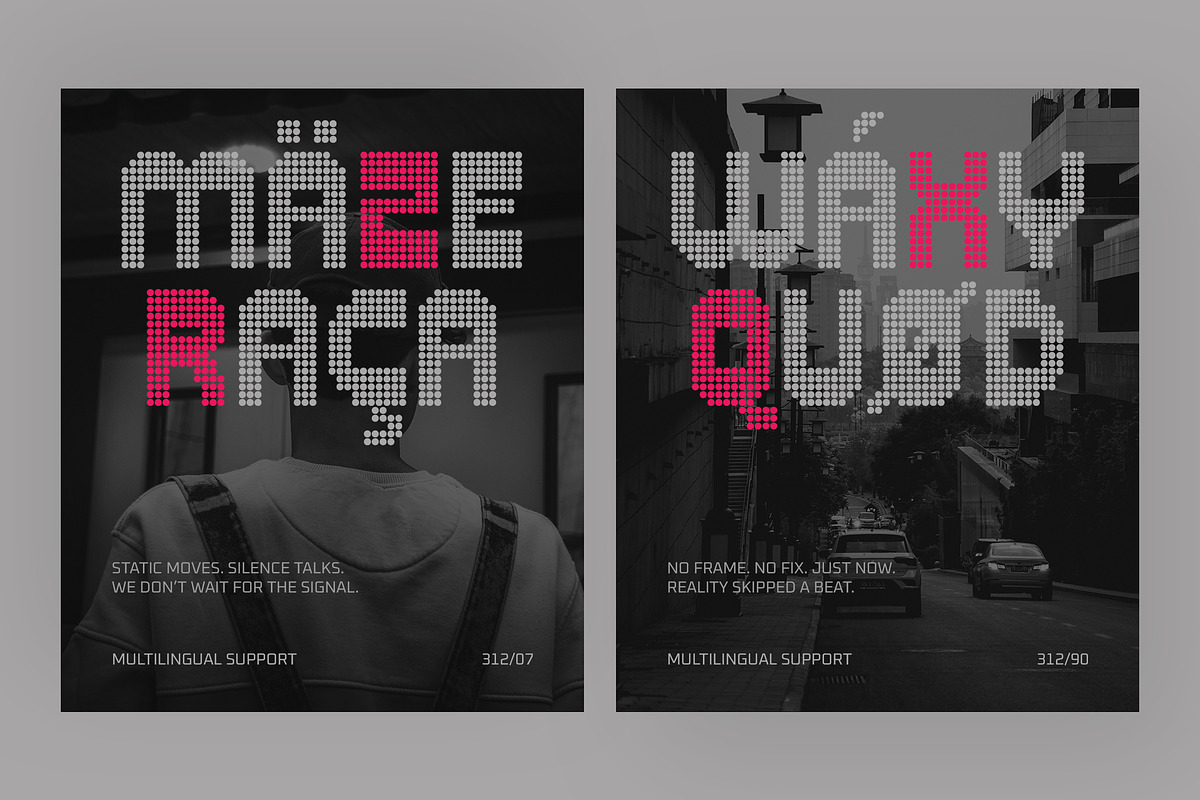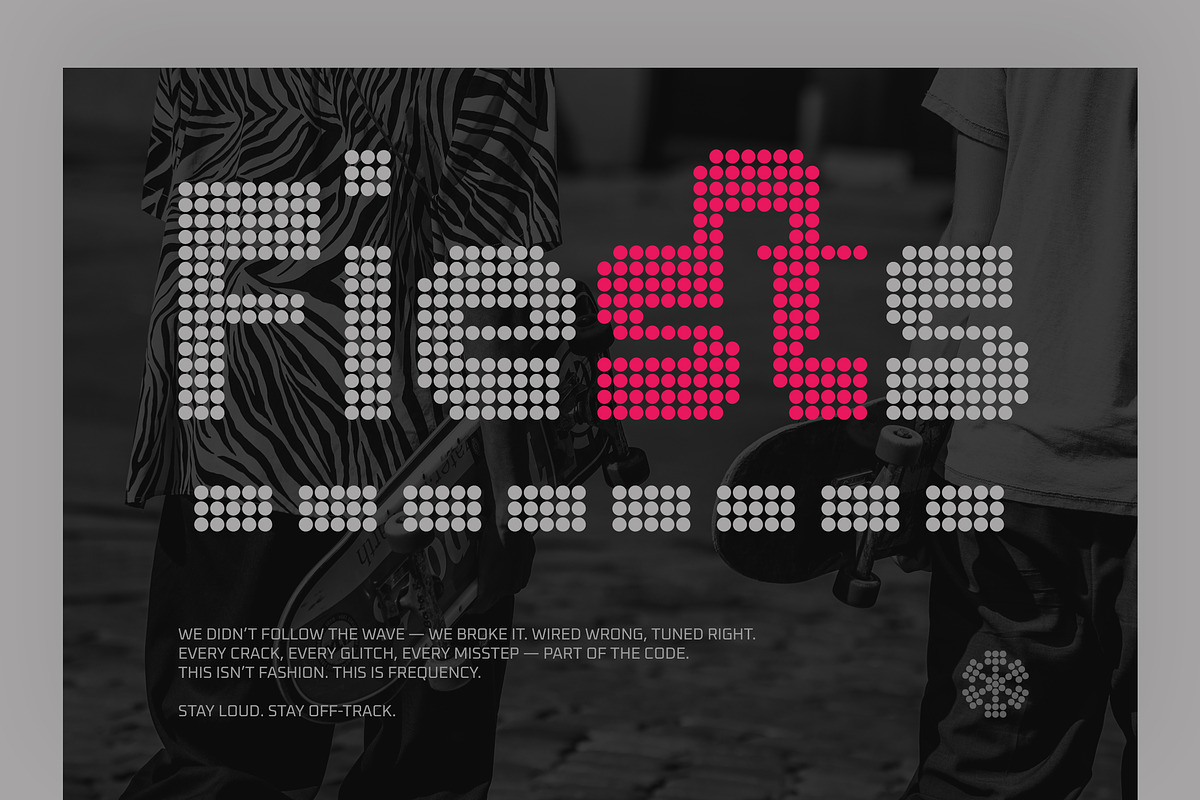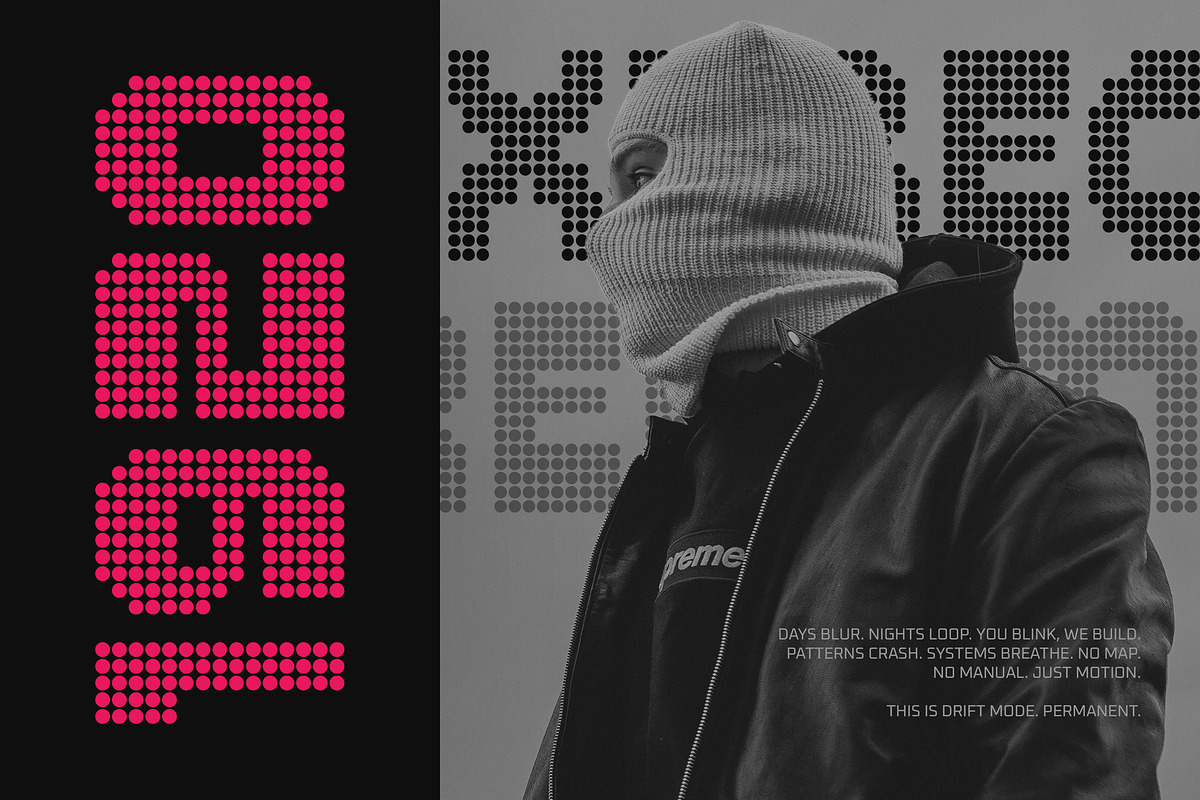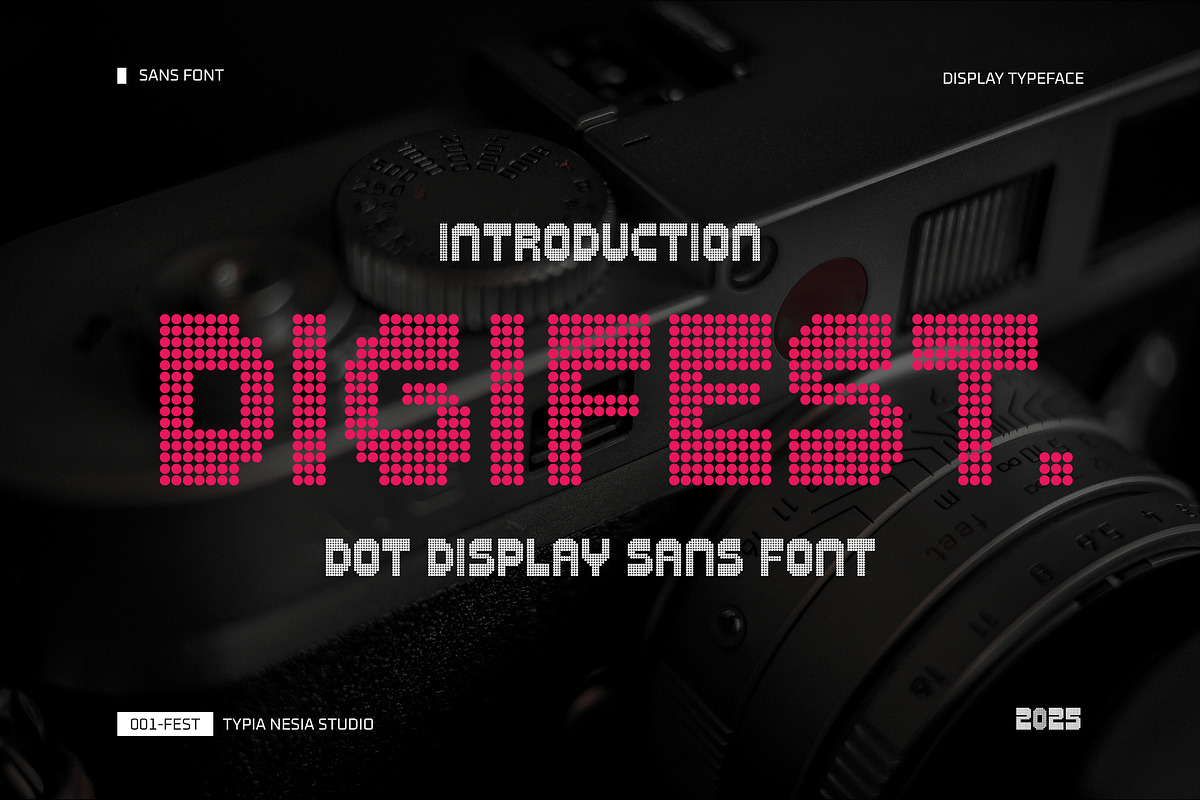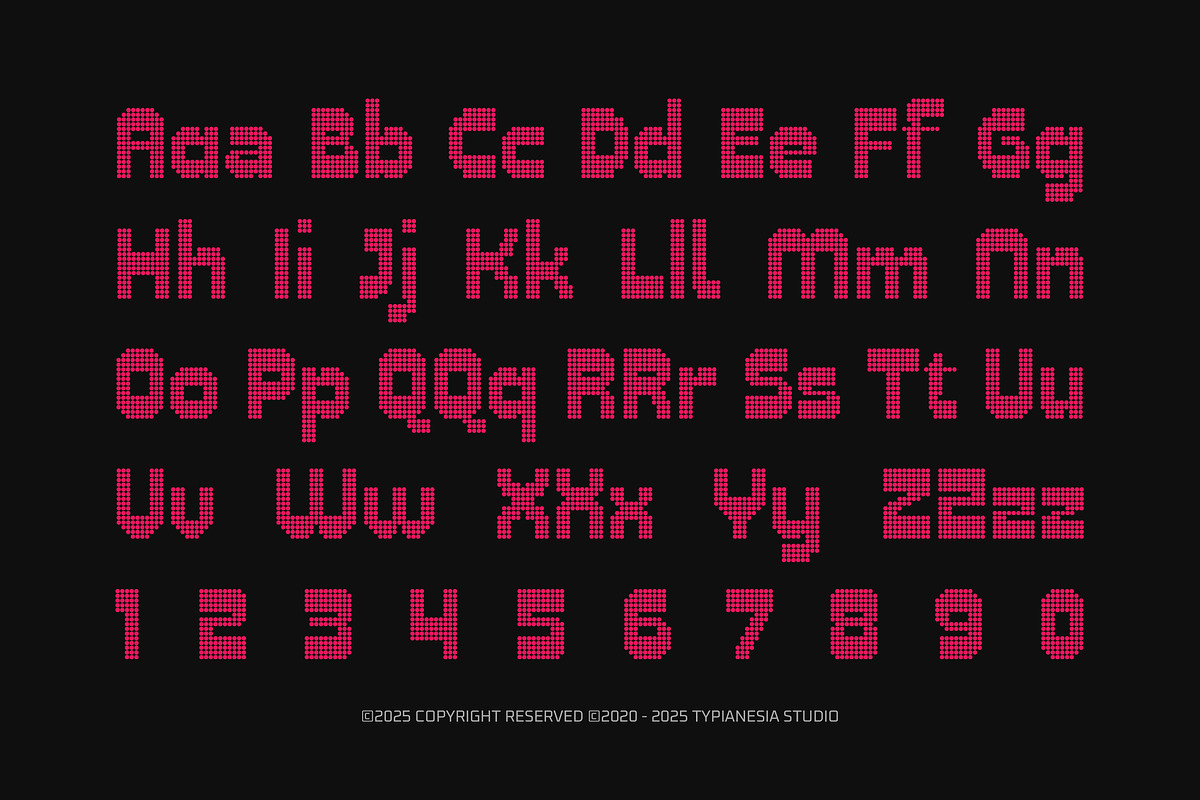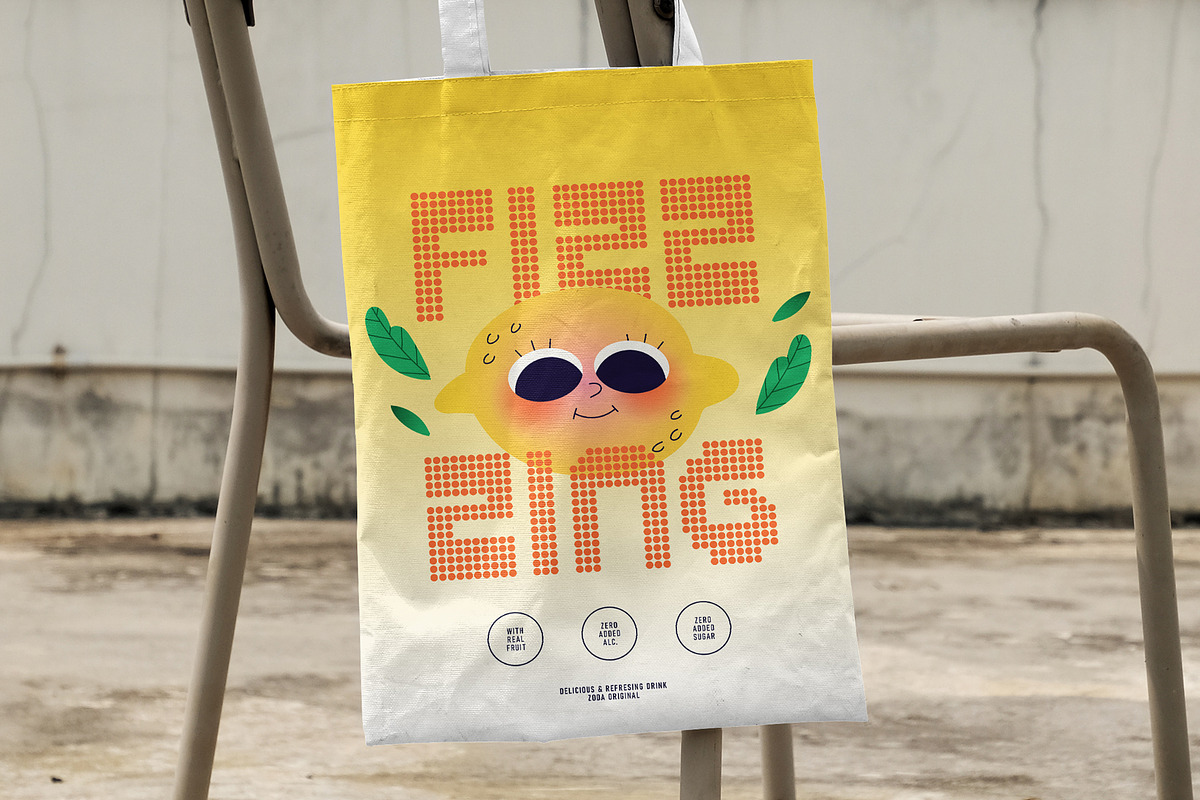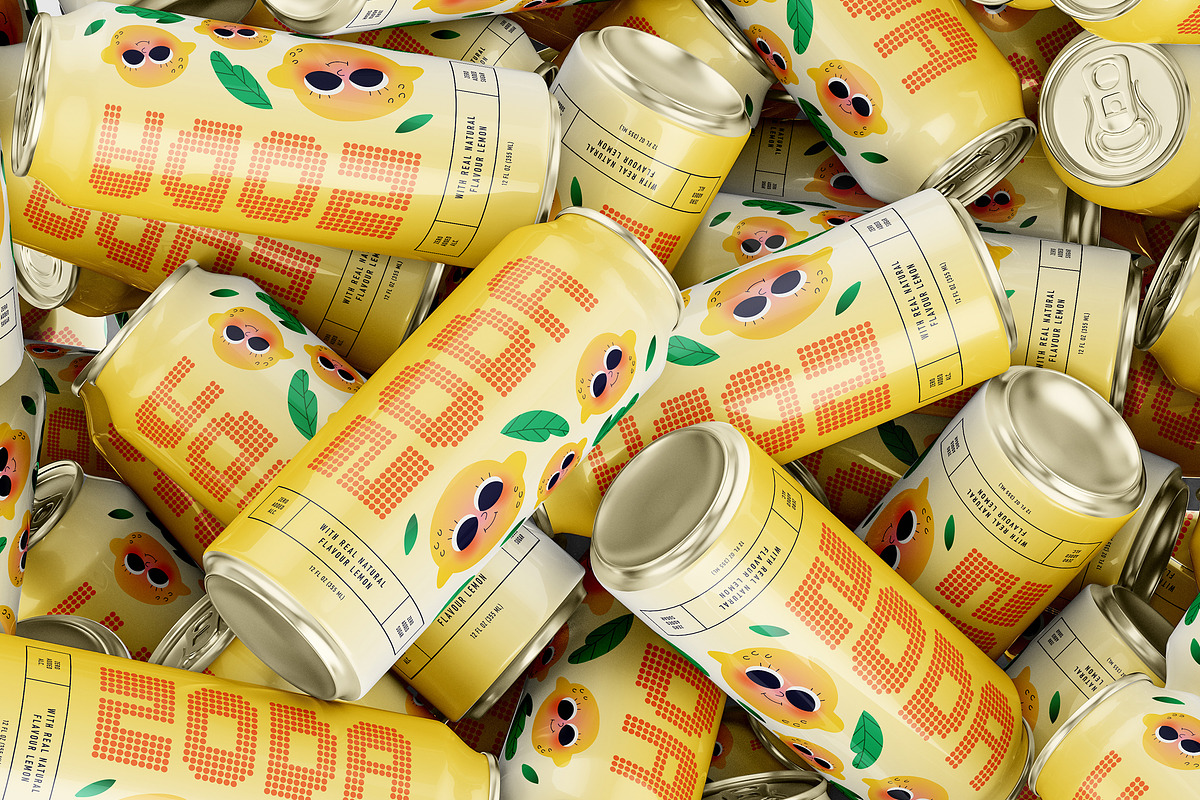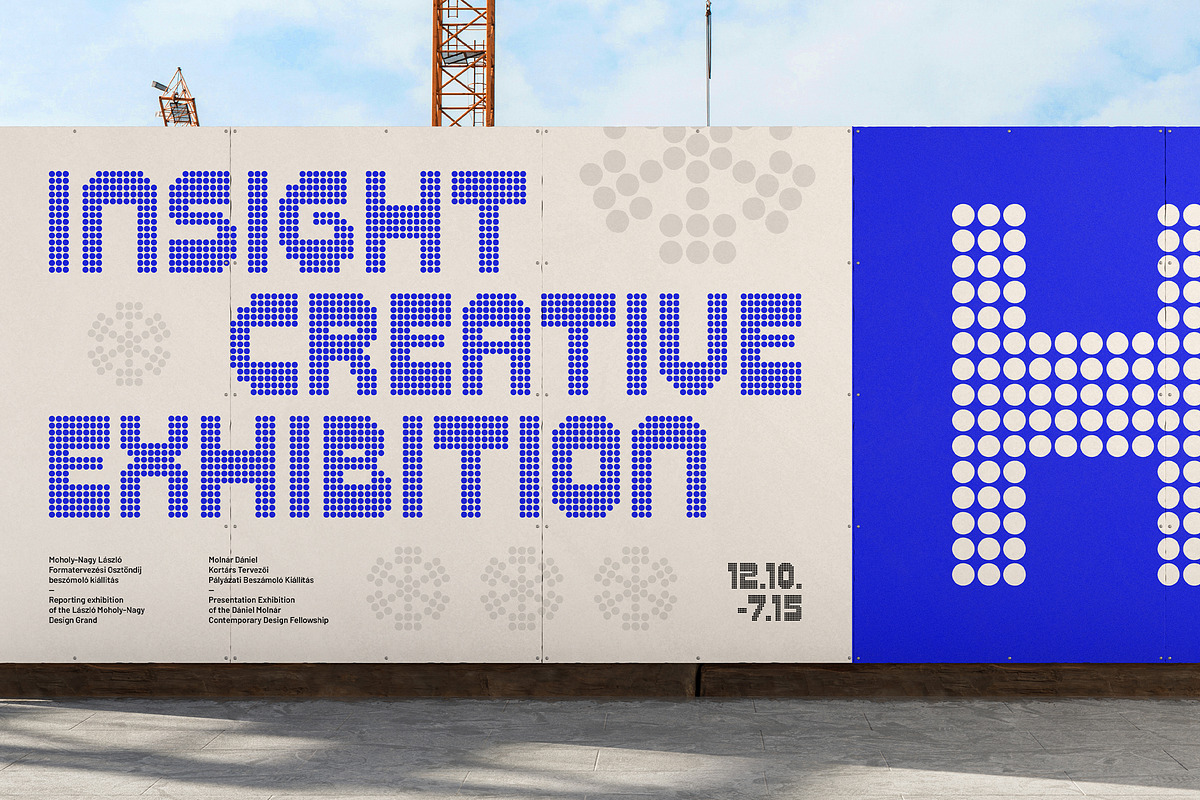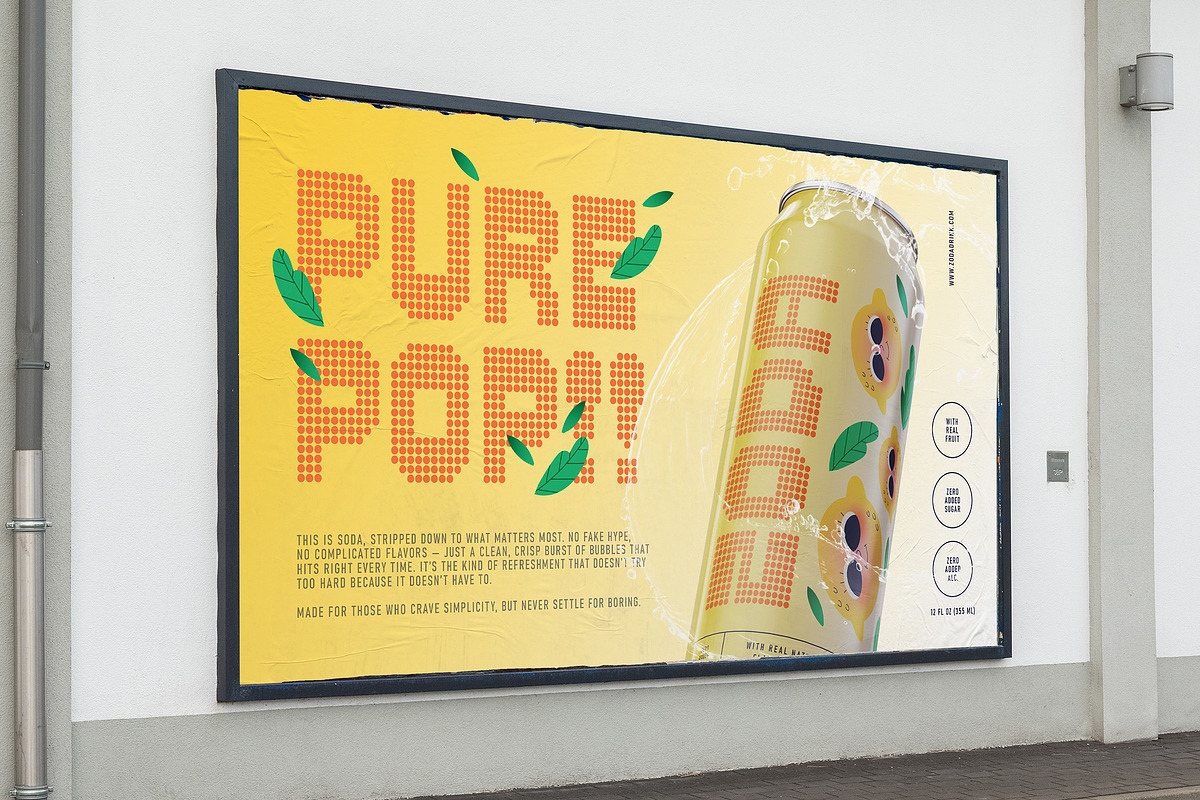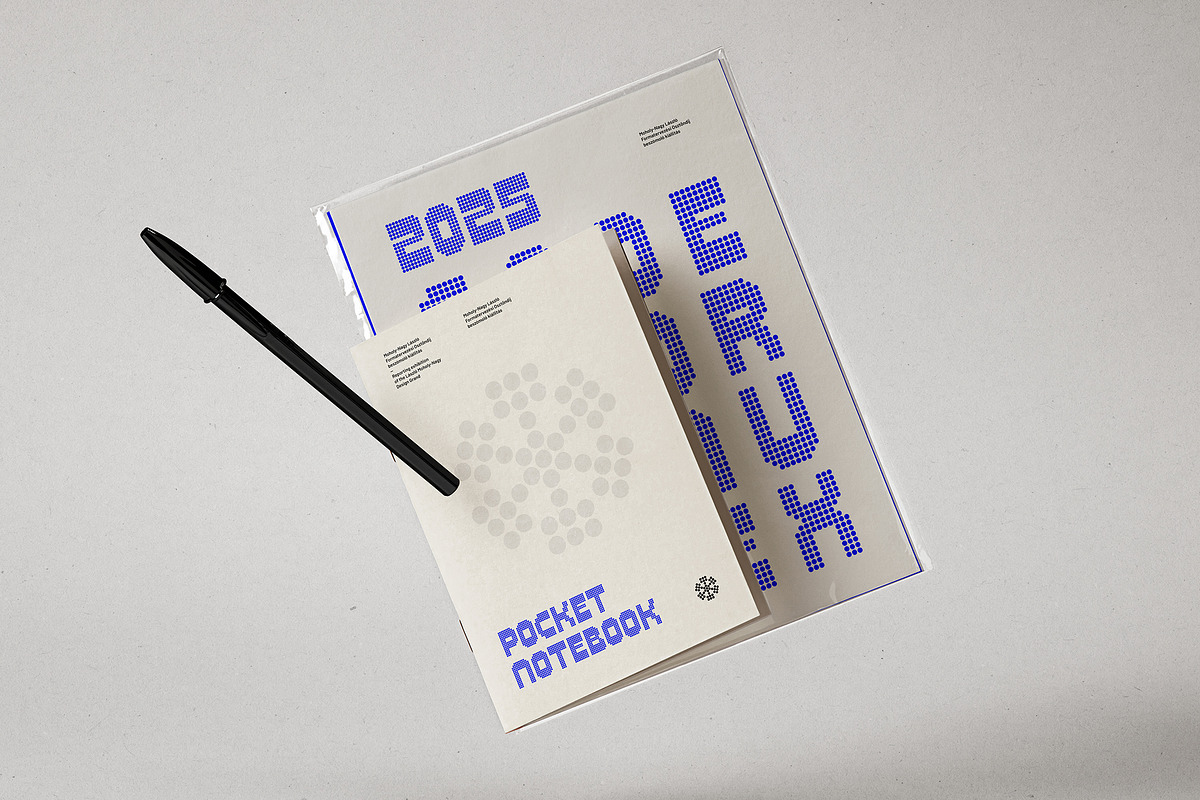
Digifest - Modern Dot Display Sans
Digifest - Modern Dot Display Sans Typeface - Digital Futuristic & High-Impact Designs.
Digifest is a cutting-edge dot display sans font that perfectly blends digital aesthetics with a bold, modern sensibility. Each character is meticulously crafted from uniform dots, creating a unique pixelated yet clean appearance. This versatile display typeface is ideal for projects demanding a futuristic, tech-inspired, or cyberpunk vibe, making it perfect for gaming, urban branding, event posters, futuristic cover book, digital interfaces, packaging, advertising and impactful headlines. With its distinctive visual identity, Digifest ensures your message stands out in any contemporary design.